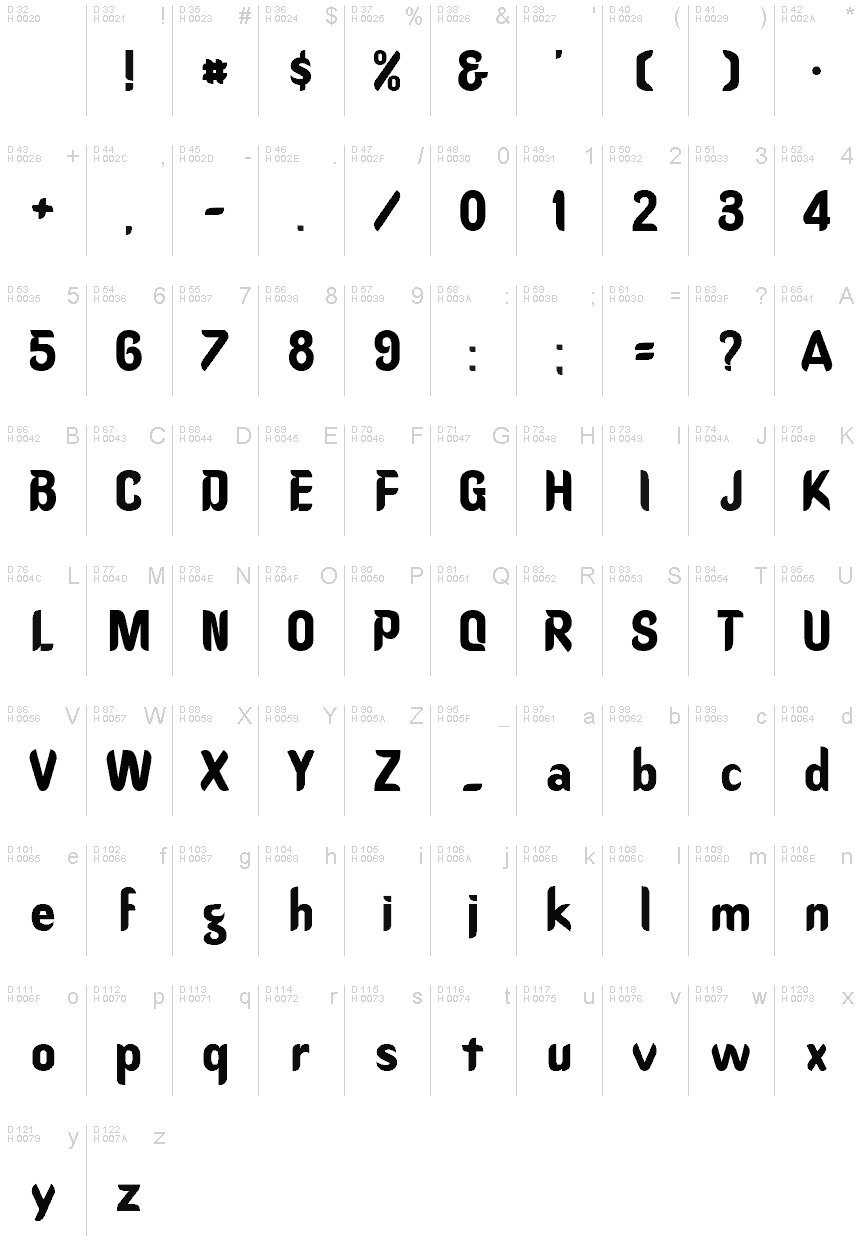
OregonDry-Plain Regular
Oregon Dry is a striking display font designed by Pat Snyder. With its bold, unapologetic presence, this font exudes a sense of rugged authenticity. The sharp, angular letterforms convey a sense of strength and solidity, reminiscent of the Pacific Northwest landscape that inspired its creation. Oregon Dry's versatility shines through, lending itself equally well to bold headings, impactful branding, and eye-catching signage.
Its distinctive style commands attention, making it an ideal choice for projects that seek to evoke a sense of adventure, outdoor exploration, or industrial chic.